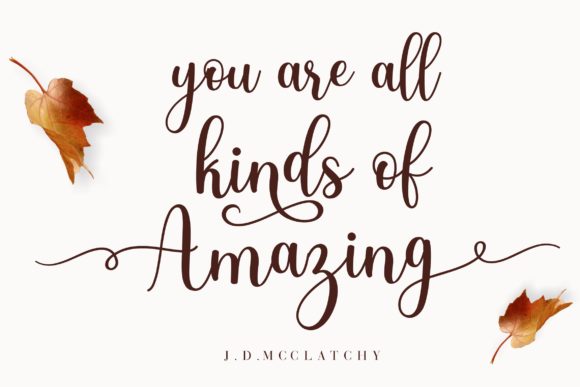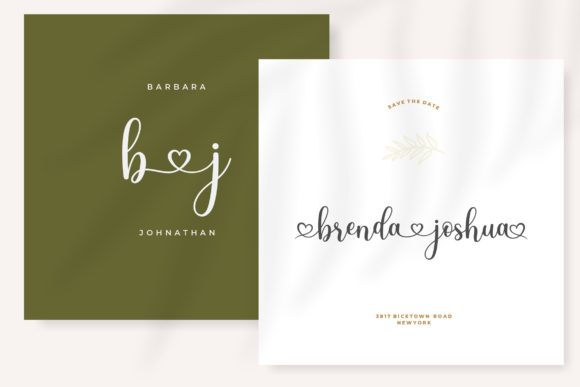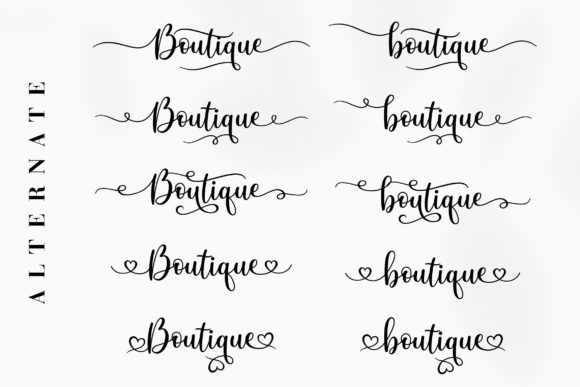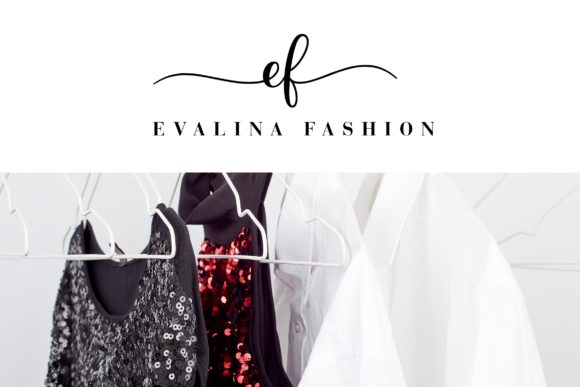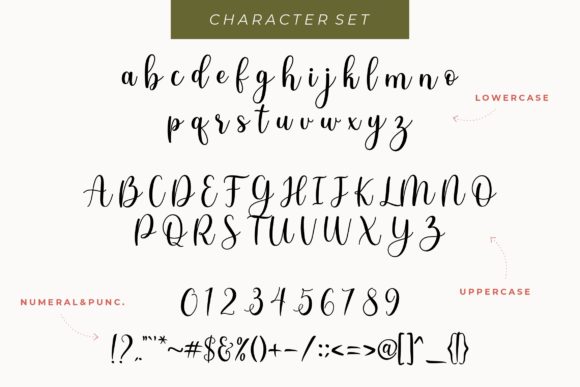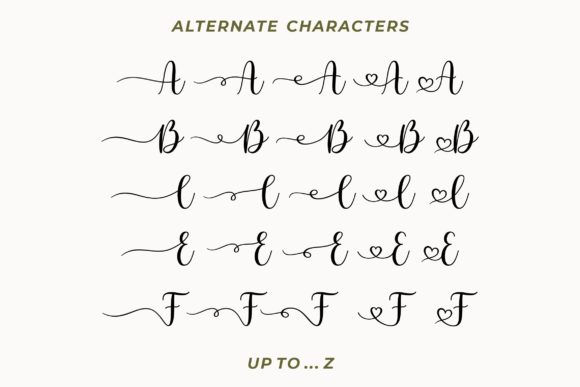
Introduction to Samantha Calligraphy Font
As a designer, there’s nothing quite like the thrill of bringing a creative project to life. Whether it’s a beautiful wedding invitation or a stunning social media post, the right font can make all the difference. And for those seeking a touch of elegance and sophistication, the Samantha Calligraphy Font is an absolute game-changer.
Imagine being able to add a personal touch to your designs with a font that exudes refinement and poise. The Samantha Calligraphy Font is a clean and modern script font that’s perfect for adding a touch of whimsy to your creative projects. Whether you’re working on a design project with a transparent background or looking for a high-quality font to enhance your DIY projects, this font is sure to impress.
Key Features of Samantha Calligraphy Font
- Unique, elegant script style suitable for creative projects and design resources.
- High-quality design with a transparent background, ideal for use on various backgrounds.
- Available in a single font size, making it easy to use in various design applications.
- Designed with a resolution of 300 DPI, ensuring crisp and clear text output.
- Suitable for use in a variety of creative projects, including invitations, posters, and wedding designs.
Honest Review: Samantha Calligraphy Font
I recently had the chance to work with the Samantha Calligraphy Font, and I must say it’s been a great addition to my design resources. This high-quality font is perfect for any creative project that requires a touch of elegance and sophistication.
Here are some of the things that work well for me:
- ✨ Elegant and sophisticated feel that’s perfect for wedding invitations, event branding, and more.
- ✨ High-quality design that looks great on both digital and print materials.
- ✨ Easy to use, with a transparent background that makes it simple to customize.
Of course, no font is perfect, and I did encounter a few limitations:
- ⚠️ Limited character set, which can make it difficult to use for longer blocks of text.
- ⚠️ May not be suitable for use in small font sizes, as the letterforms can become difficult to read.
Overall, I’m really impressed with the Samantha Calligraphy Font. It’s a great design resource for anyone looking to add a touch of elegance to their creative projects. While it may have some limitations, the benefits far outweigh the drawbacks in my opinion.
Introduction to Samantha Calligraphy Font
The Samantha Calligraphy Font is a high-quality, free design resource ideal for any creative project. This elegant font is perfect for adding a touch of sophistication to your designs, making it a valuable asset for any designer or artist.
Designing with a Transparent Background
One of the benefits of the Samantha Calligraphy Font is its ability to be used on a transparent background. This makes it perfect for creating custom graphics, logos, and other design elements that require a high level of customization.
Tips for Getting the Most Out of Samantha Calligraphy Font
To get the most out of the Samantha Calligraphy Font, be sure to experiment with different font sizes, colors, and spacing to create a unique and eye-catching design. Additionally, consider using the font in combination with other design elements to create a cohesive and professional look.